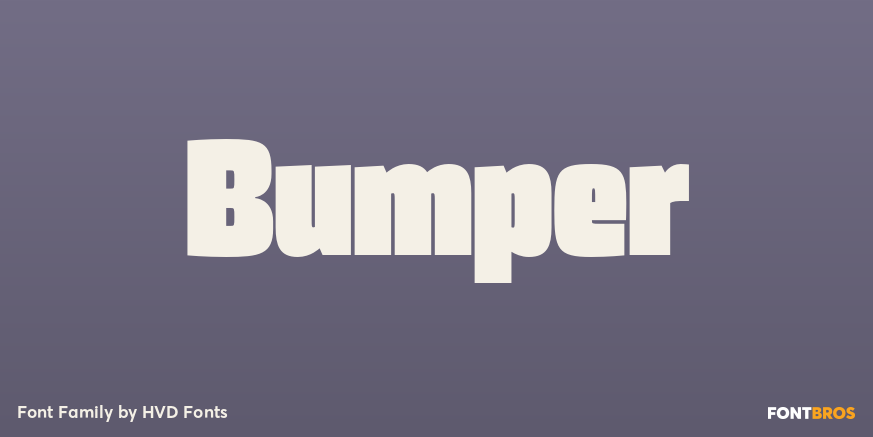
Bumper
Bumper is the ideal ultra-black Sans Serif if you wanna make noise. The three widths could even be mixed in one single word, which creates a hand-made, edgy look. Bumper falls between glossy mags and poster art, and has a great effect when used for flyers.…